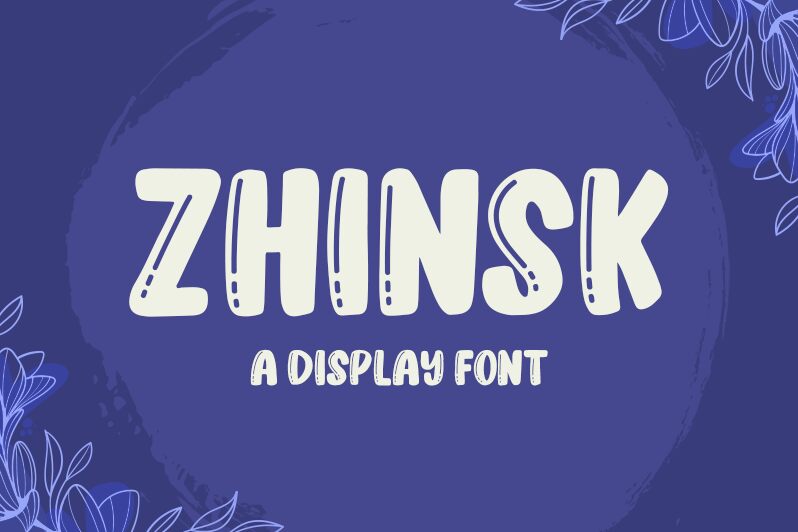
Zhinsk
Zhinsk, crafted by Beautypes, stands out as a playful yet assertive display font that packs a punch with its bold weight and condensed width. Its cartoon style exudes a friendly vibe that is both eye-catching and delightfully expressive. The design of Zhinsk combines whimsical curves with sturdy structure, making it an ideal choice for creative projects seeking to inject personality and charm.
The font's condensed form allows for impactful headline-making in limited spaces, while its boldness ensures legibility at various sizes. Whether adorning the pages of a children's book, splashed across vibrant packaging designs, or featured within dynamic advertising campaigns, Zhinsk brings an element of fun without sacrificing clarity. Its aesthetic appeal lies in its ability to balance playfulness with practicality – a versatile asset for designers aiming to craft engaging visual narratives.